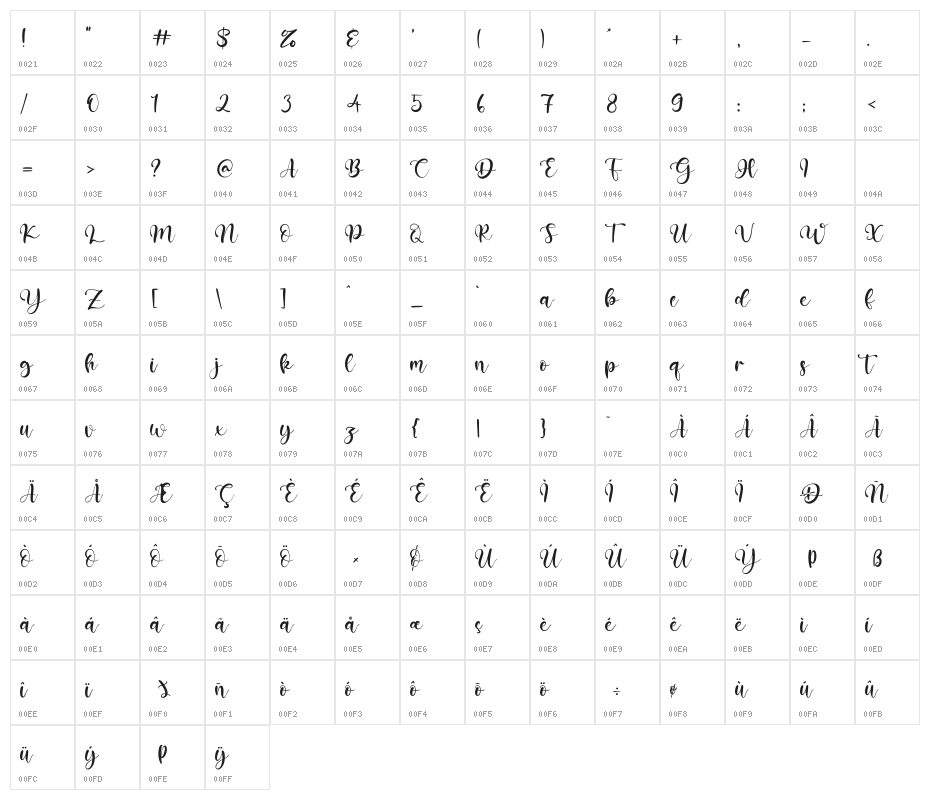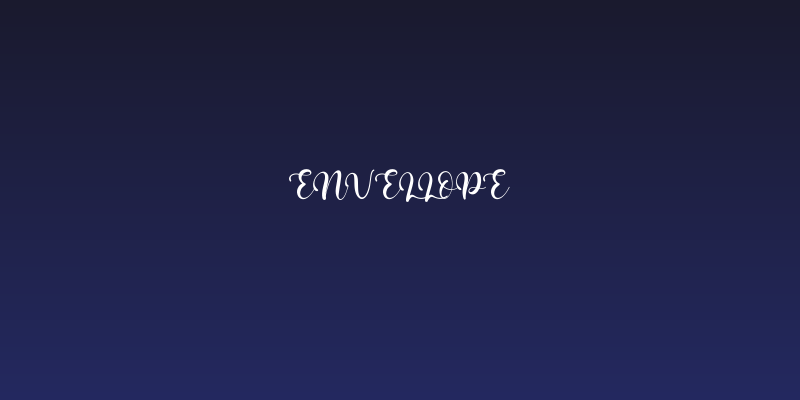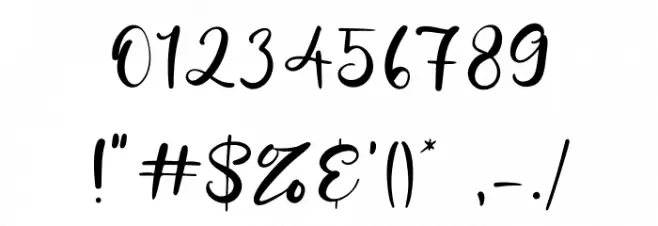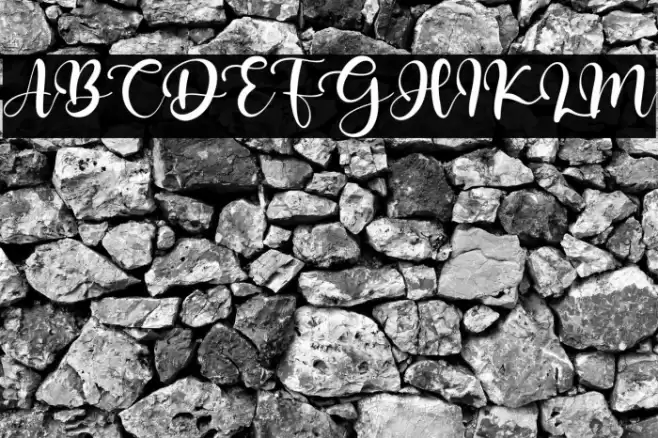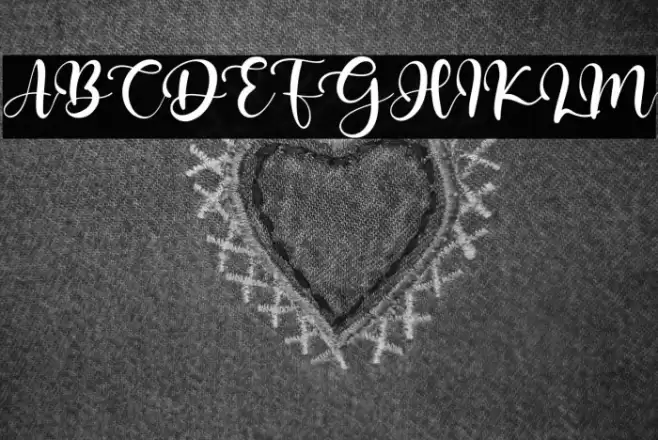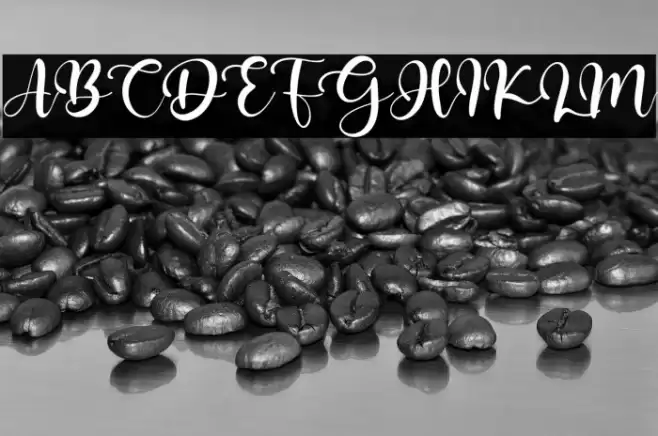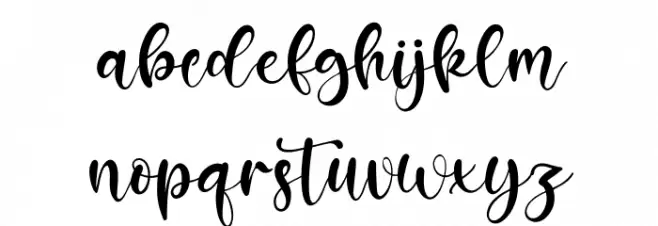
Envellope Font
Envellope Description
This font exhibits a flowing, cursive style with elegant loops and flourishes, giving it a sophisticated and artistic appearance. The uppercase letters are particularly ornate, with sweeping lines and intricate details that add a touch of elegance. The lowercase letters maintain a consistent style, with smooth curves and a slightly playful character. The numerals are bold and clear, maintaining the decorative theme without sacrificing readability. Special characters are designed with the same attention to detail, ensuring they blend seamlessly with the rest of the font. Overall, this font combines a sense of grace and creativity, making it suitable for projects that require a personal and artistic touch.